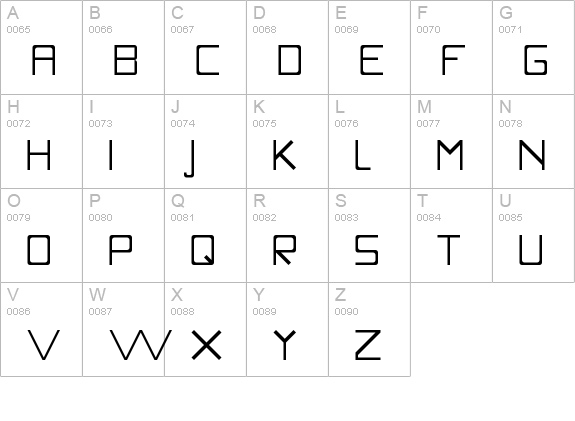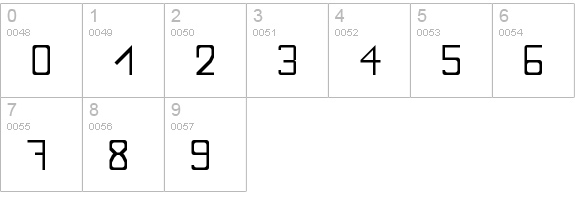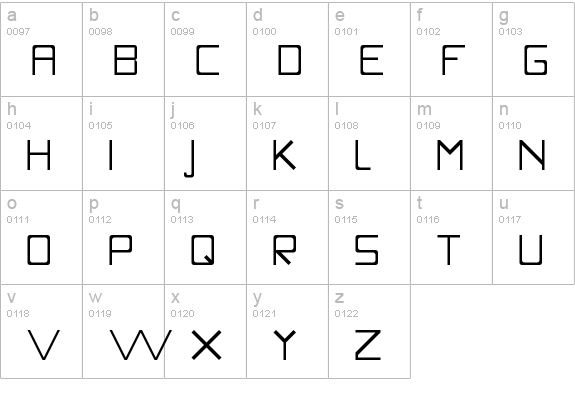
WLM Nova Sans Light Regular Font Details
WLM Nova Sans Light Regular is a refined, elegant variant in the WLM typeface family \xE2\x80\x94 well suited to elegant body text, refined sub-headings, and luxury branding.
WLM Nova Sans Light Regular font is an elegant and versatile typeface that exudes modernity and sophistication. With its clean lines and balanced proportions, this font is perfect for a wide range of design projects, from branding and advertising to editorial layouts and web design. The light weight of WLM Nova Sans Light Regular font adds a delicate touch to any text, making it ideal for conveying a sense of subtlety and refinement. Its slender letterforms are legible and easy on the eyes, making it suitable for extended reading. One of the best things about WLM Nova Sans Light Regular font is that it is free. Yes, you read that right! This high-quality typeface is freely available to download at FontsMarket.com, making it accessible to designers and creatives of all levels. Whether you are a professional designer or a hobbyist looking to enhance your projects, WLM Nova Sans Light Regular font is a valuable addition to your font library. Its versatility and elegance make it a go-to choice for various design applications. So why wait? Download WLM Nova Sans Light Regular font for free at FontsMarket.com and elevate your designs to new heights.